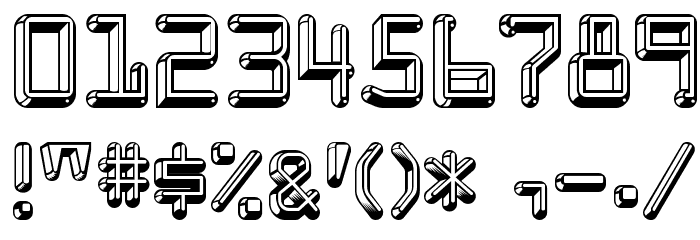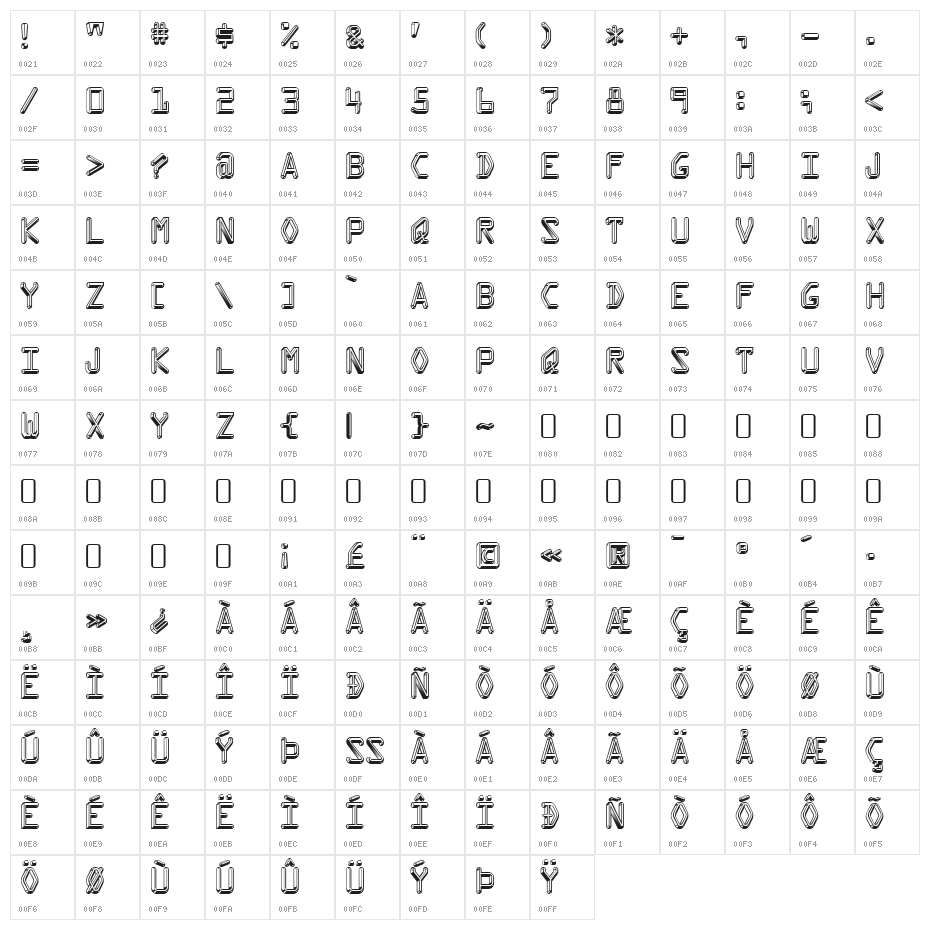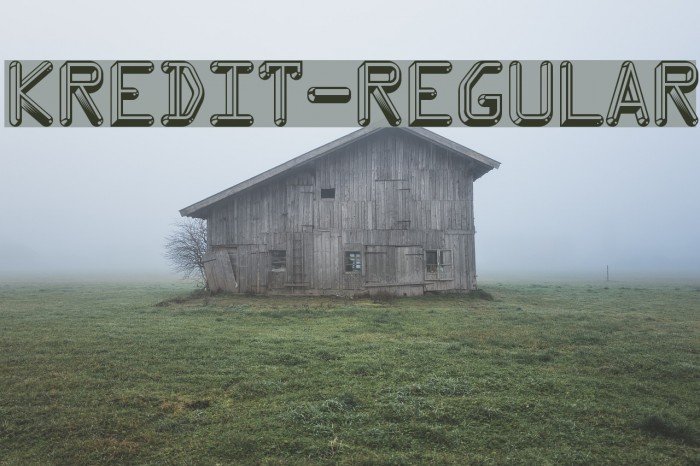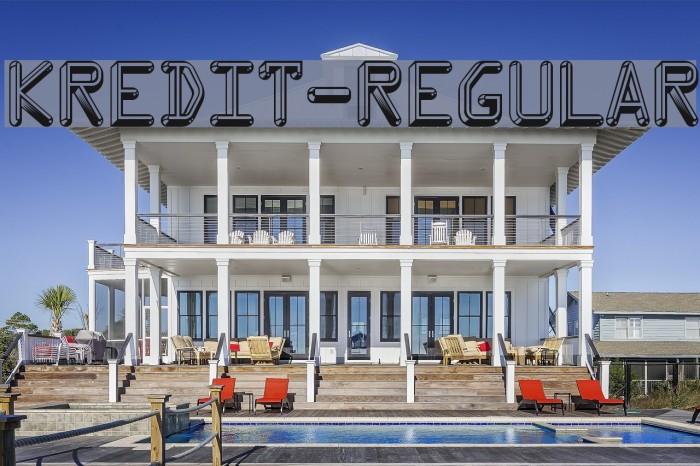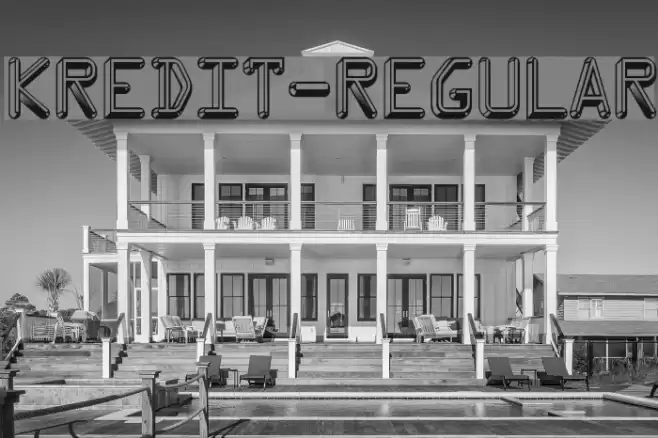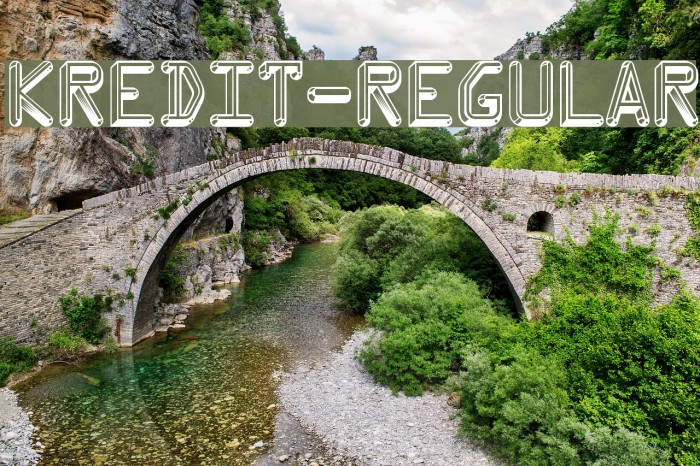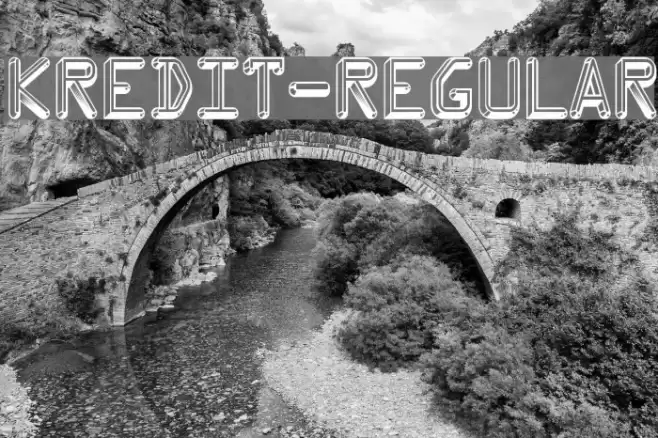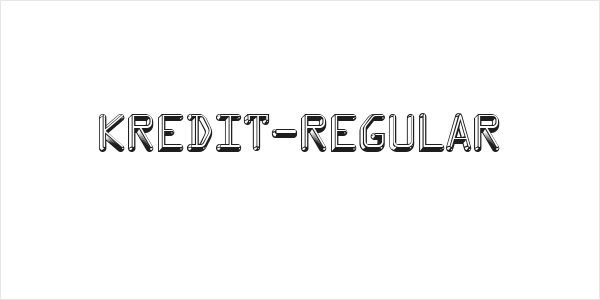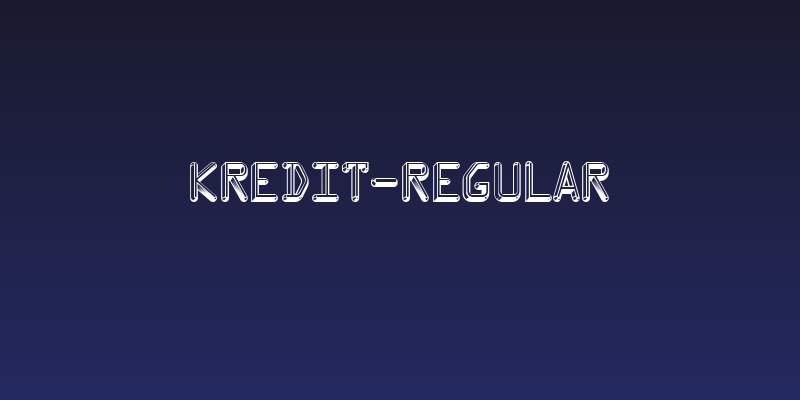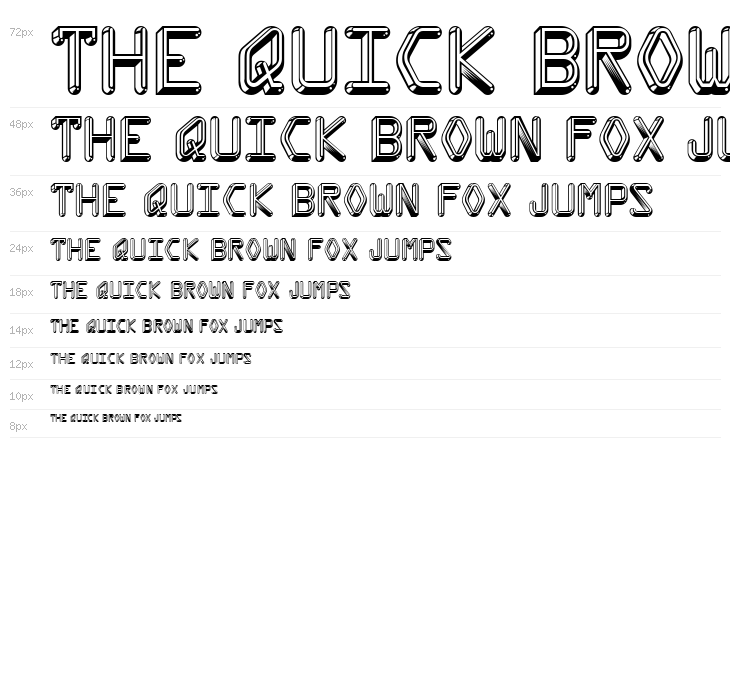
Kredit-Regular Font
Kredit-Regular Description
This font features a bold, three-dimensional appearance with a distinct outline and shadow effect, giving it a dynamic and modern look. The characters are structured with geometric precision, incorporating straight lines and sharp angles that create a sense of depth and movement. The uppercase and lowercase letters maintain a consistent style, with the numerals and special characters complementing the overall aesthetic. The design is visually striking, making it suitable for projects that require a strong, impactful presence.
| Proposed Projects | Ideal for branding, posters, headlines, and any design requiring a bold, eye-catching typeface. |